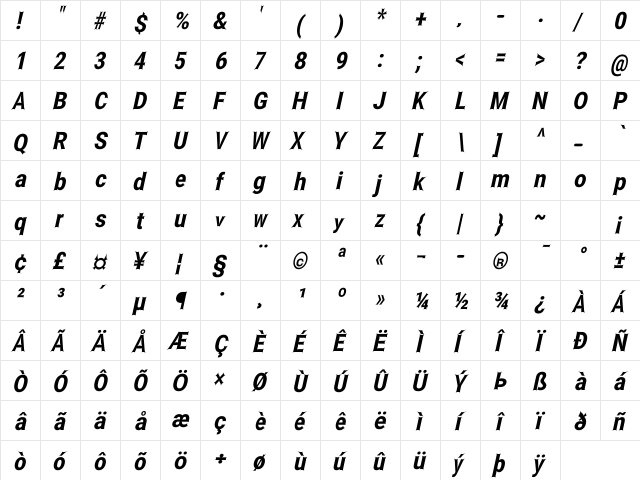
Asimov EdgeExtremeIt Font Preview
Asimov EdgeExtremeIt
Asimov EdgeExtremeIt Font Details
Design Context for Asimov Typeface
Asimov is a composed and adaptable typeface that performs quietly and consistently across a wide range of design contexts.